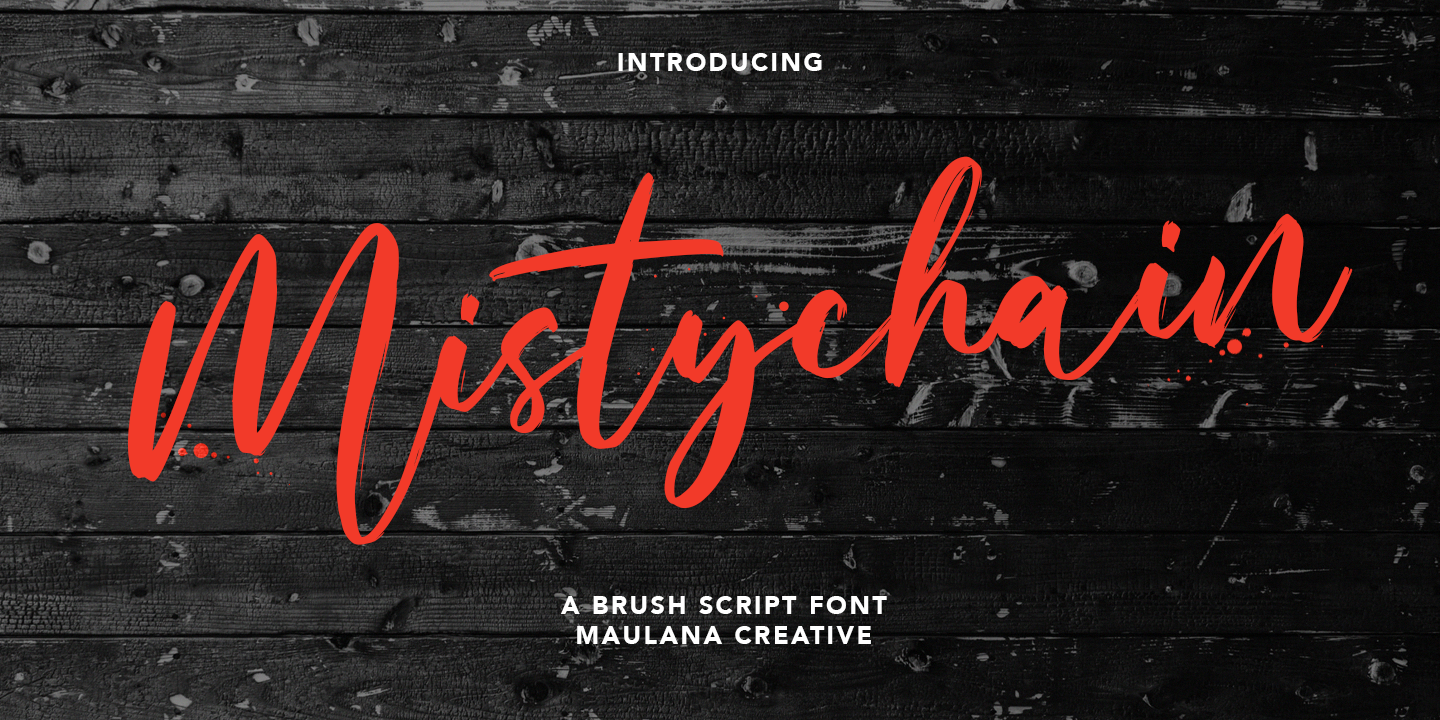
Mistychain Font is perfect for blockchain technology companies, cryptocurrency exchange branding, fintech startup communications, digital asset management platforms, Web3 development services, NFT marketplace marketing, decentralized finance applications, and innovative crypto venture promotions. This mysterious typeface excels in applications where blockchain innovation, cryptographic security, and digital transformation are essential for connecting with audiences who embrace the revolutionary potential of distributed ledger technology and decentralized financial systems.
What makes Mistychain Font so exciting is its enigmatic fusion of mystical atmosphere with blockchain connectivity that perfectly captures the essence of cryptographic networks and the mysterious power of distributed digital ledgers. The font features interconnected, chain-like letterforms with cryptographic characteristics that evoke blockchain links and encrypted data structures. Its mysterious character conveys security, innovation, and technological depth - essential qualities for brands serving crypto communities, blockchain developers, and tech-forward audiences who appreciate decentralized systems, cryptographic security, and the transformative potential of blockchain technology and cryptocurrency innovation.
The Mistychain Font family includes multiple encrypted weights and blockchain-inspired variations that enhance its cryptographic appeal. Some versions feature subtle connection elements that simulate blockchain links and network structures, while others provide streamlined variants that maintain the font's mysterious character with enhanced readability for professional fintech applications and commercial blockchain communications.
Whether you're creating branding for blockchain companies, designing materials for cryptocurrency services, or developing marketing campaigns for Web3 experiences, Mistychain Font Free Download provides the cryptographic authority your project requires. The font's blockchain character makes it particularly effective for brands targeting crypto enthusiasts and audiences who appreciate blockchain innovation, decentralized technology, and the mysterious power of cryptographic networks.
Mine the future with Mistychain Font and encrypt powerful brand communications with typography that embodies the mysterious connectivity of blockchain technology and cryptocurrency innovation.